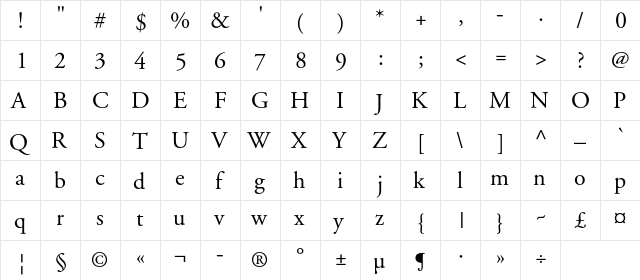
APCGaramondC Regular
Design Context for APCGaramondC Typeface
APCGaramondC is a composed and adaptable typeface that performs quietly and consistently across a wide range of design contexts.